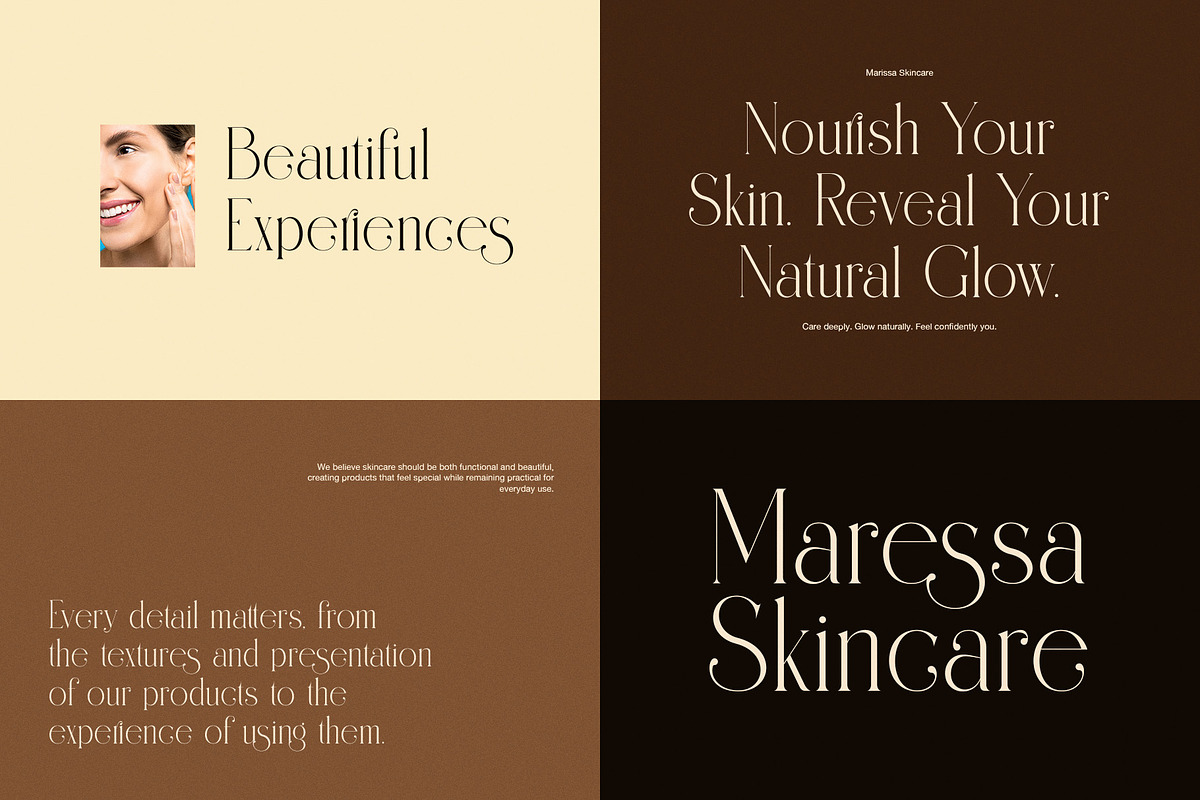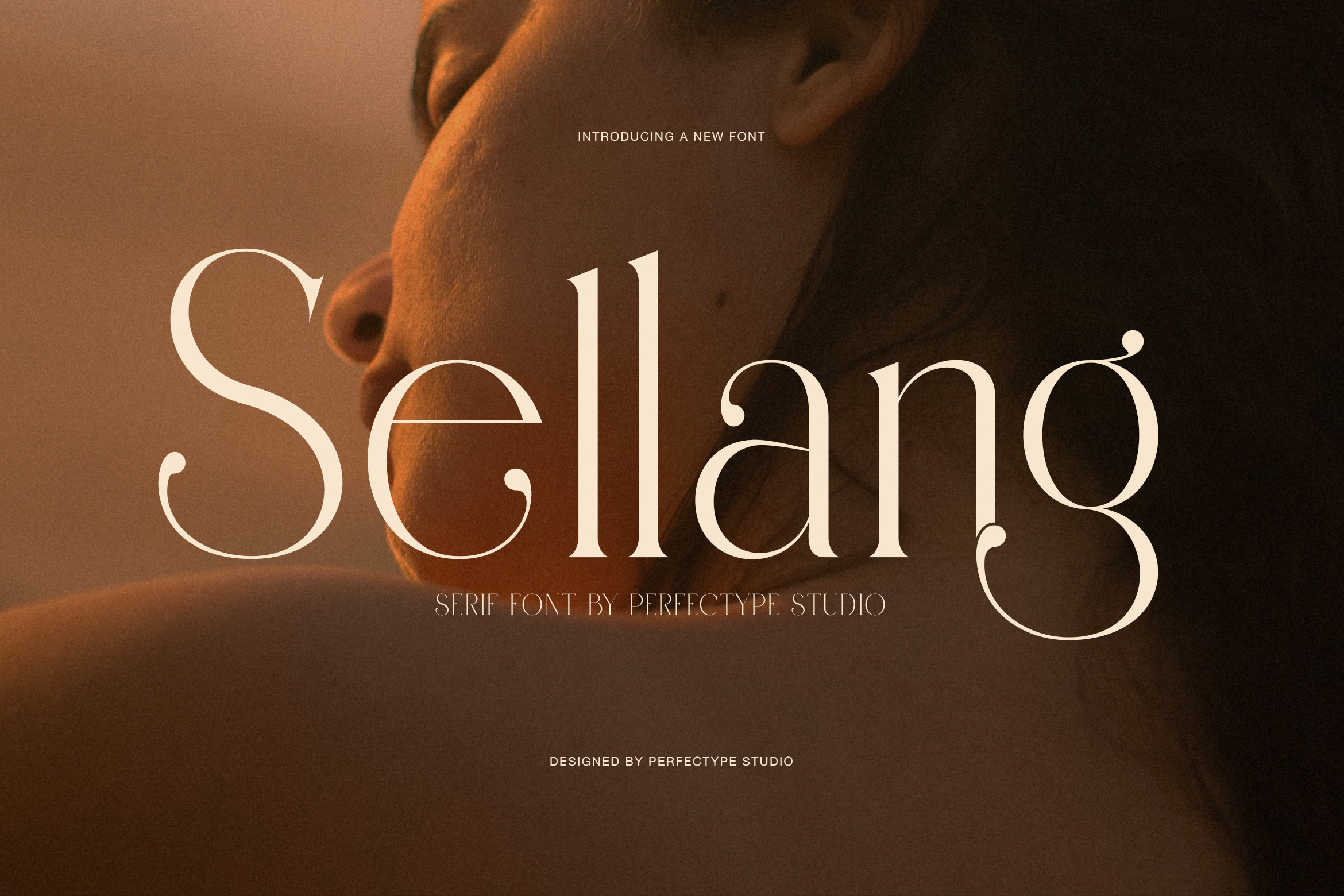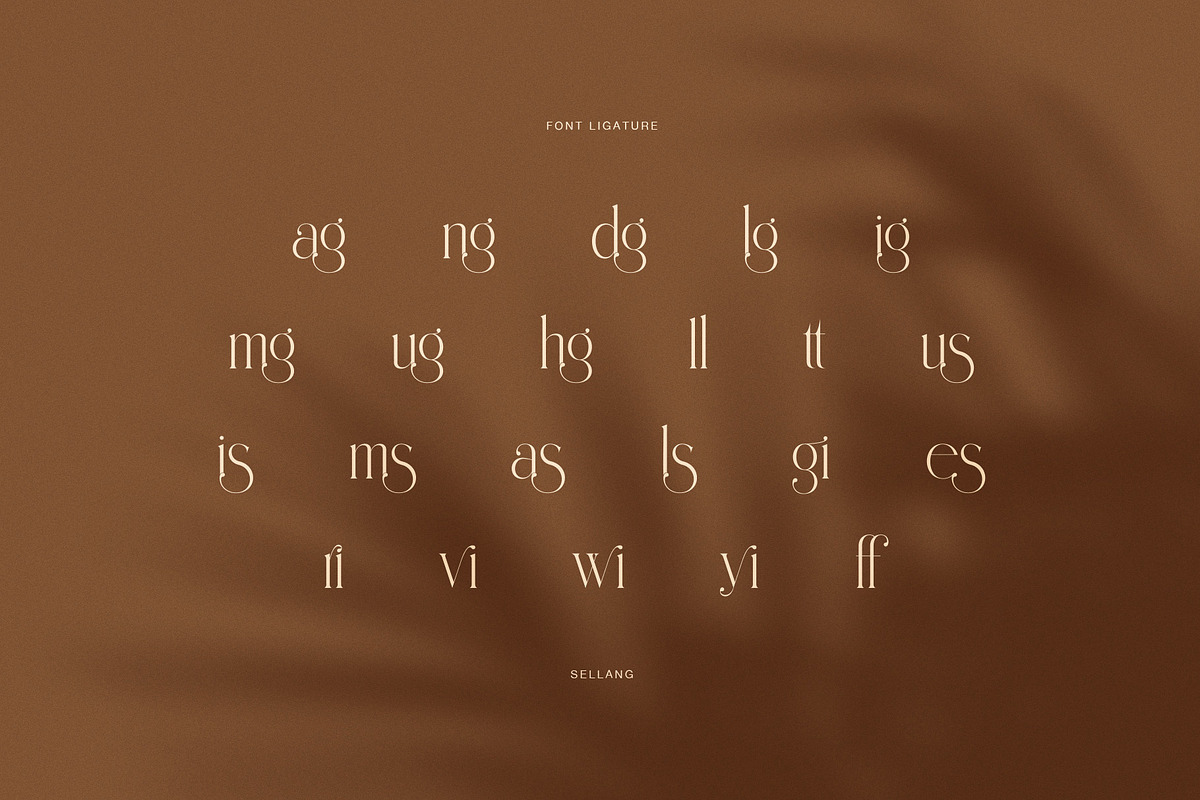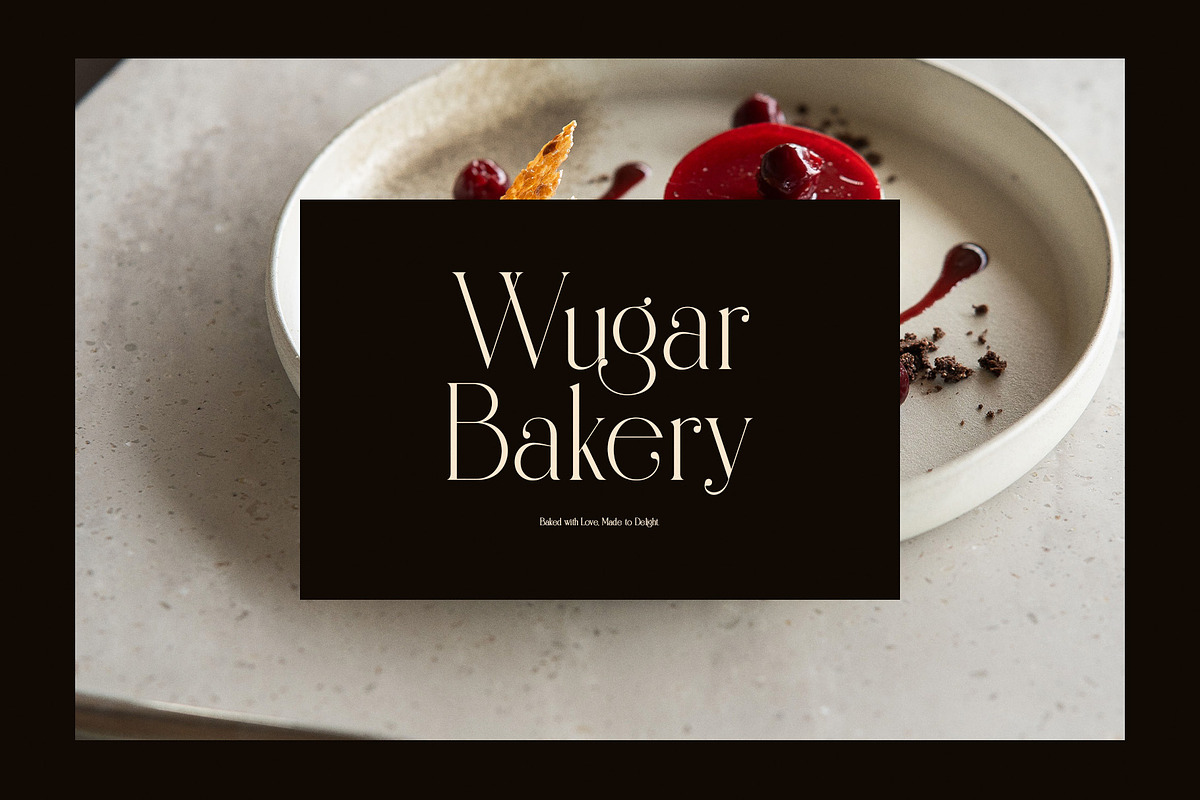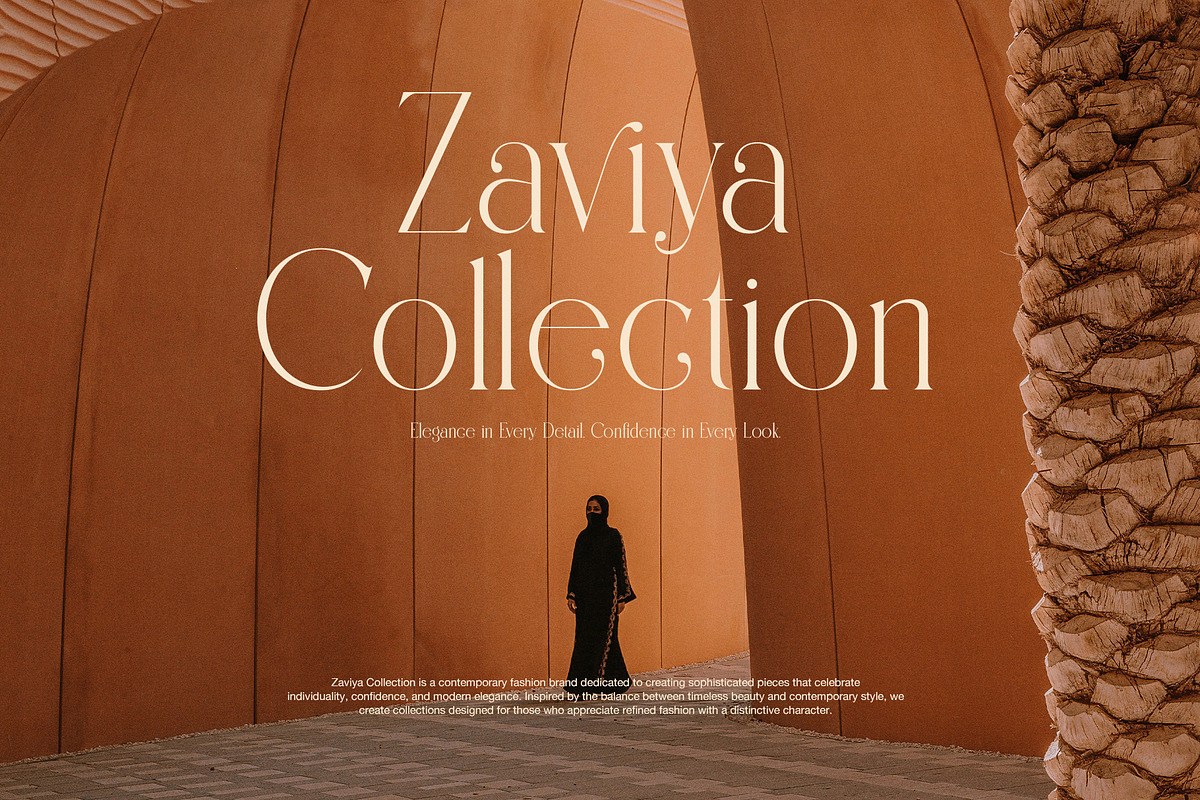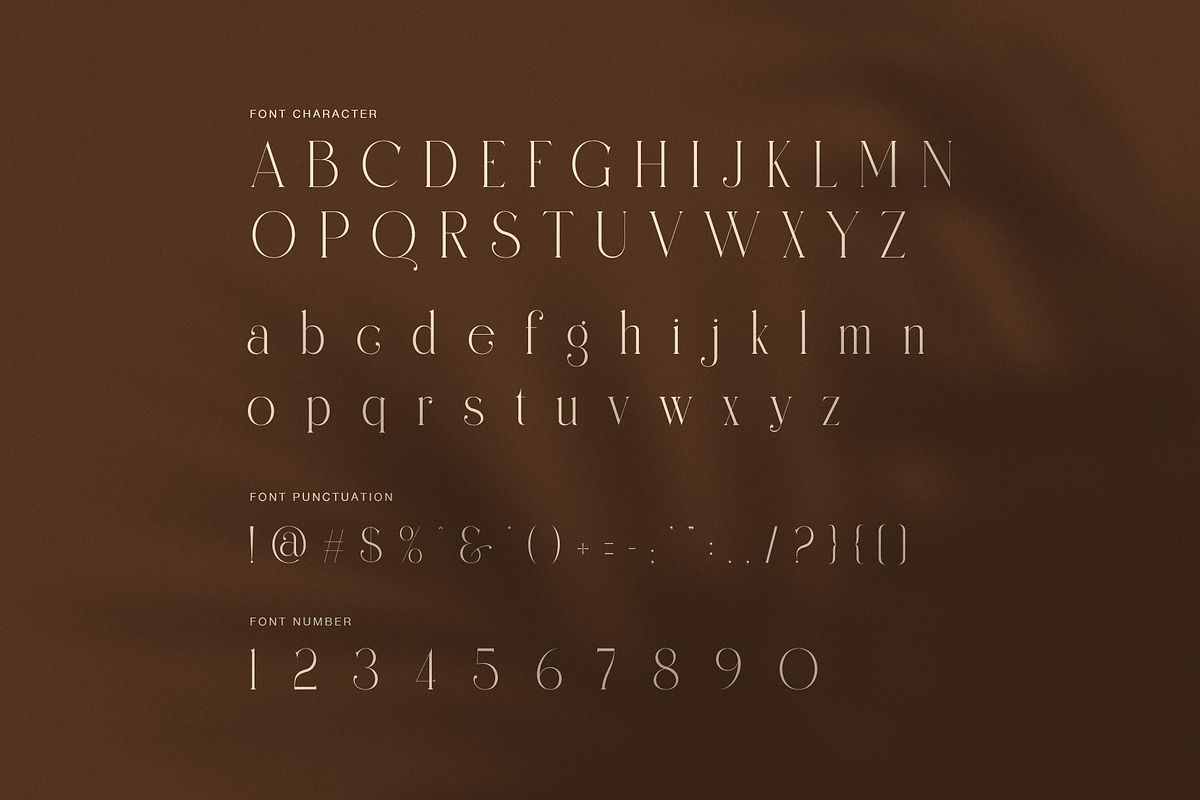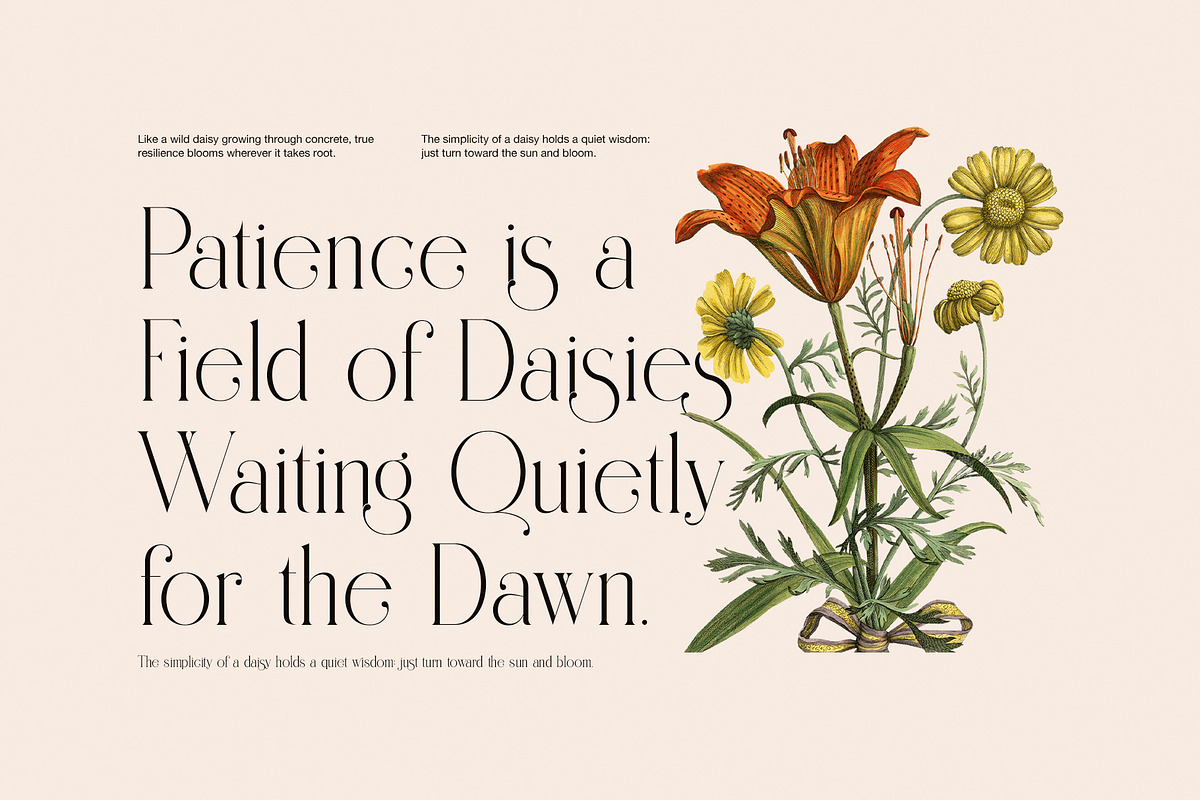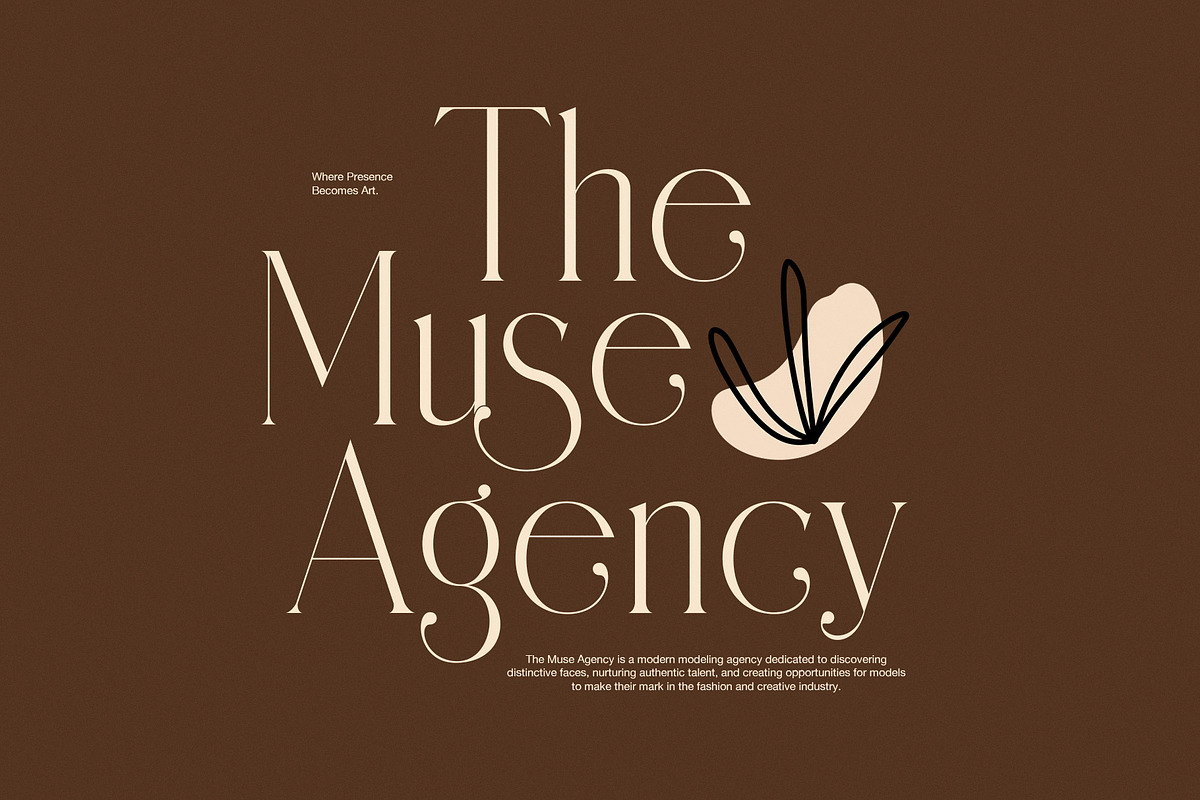
Sellang Elegant Serif Font
Sellang is an elegant high contrast serif font designed for fashion, beauty, luxury branding, and refined editorial work. Its slender proportions and delicate hairlines give every word a graceful presence. Unusual terminals and flowing curves add a subtle sense of character.
Sellang has a polished fashion feel that works beautifully in large display sizes. The uppercase letters create dramatic headlines, while lowercase forms feel softer and more expressive. In addition, curved details make the typeface distinctive without becoming overly decorative.
Because of this balance, Sellang fits projects that need elegance with a modern edge. It adds a premium touch to simple layouts with generous spacing.
Distinctive Ligatures and Details
One of Sellang’s strongest features is its collection of ligatures. These combinations create smoother connections between selected letters and give words a natural visual flow. Moreover, details in letters such as g, y, and q add personality.
The typeface is especially useful for:
Fashion and beauty branding
Skincare and cosmetic packaging
Luxury logos and monograms
Editorial magazines and covers
Wedding invitations and stationery
Boutique and lifestyle identities
Photography and portfolio design
Refined Display Typography
Sellang is made primarily for display use, where its fine strokes and elegant proportions can be appreciated clearly. Therefore, it works especially well for names, headlines, short statements, and brand messages. Meanwhile, its numbers and punctuation maintain the same delicate visual language.
The font also pairs well with simple sans serif typefaces. As a result, designers can build clear hierarchy while keeping the composition sophisticated. Clean photography and spacious layouts can further highlight its character.